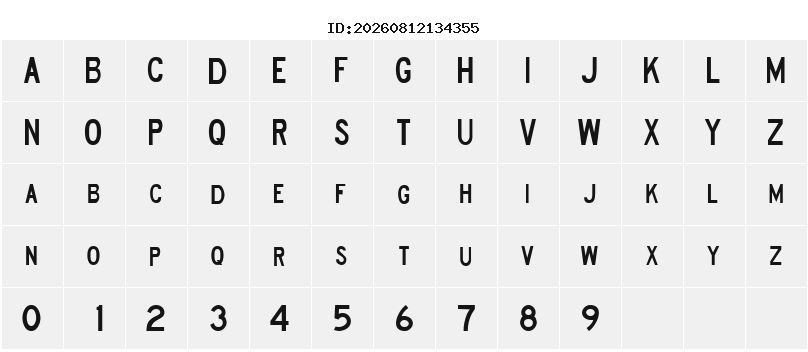
About Road Sign D.ttf
Road Sign D.ttf is a modern, elegant sans-serif font designed for ultimate readability and visual harmony. Perfect for branding, headlines, web design, and print materials.